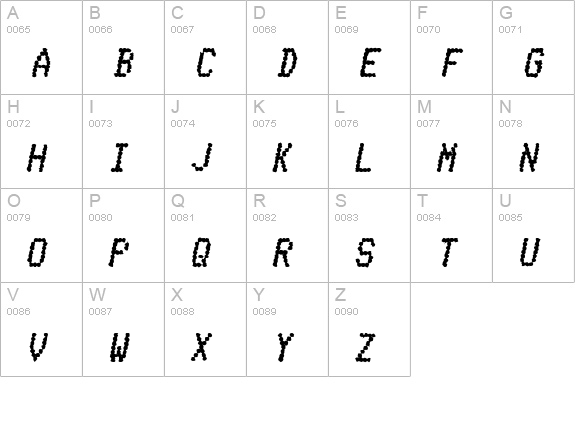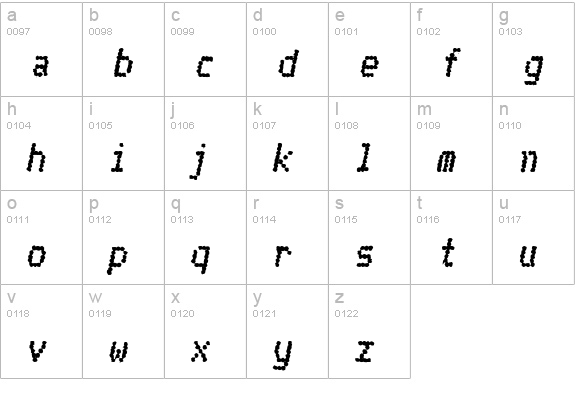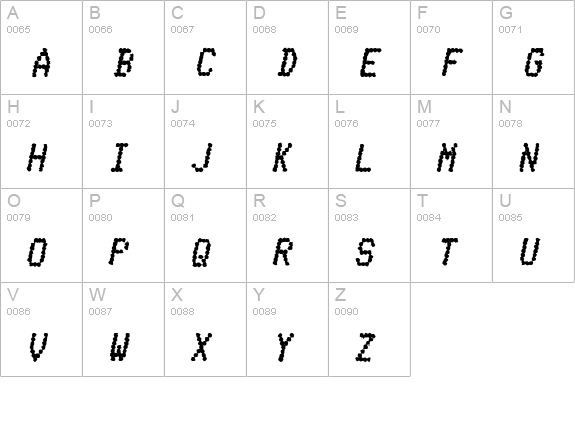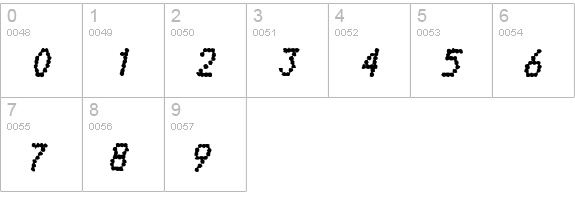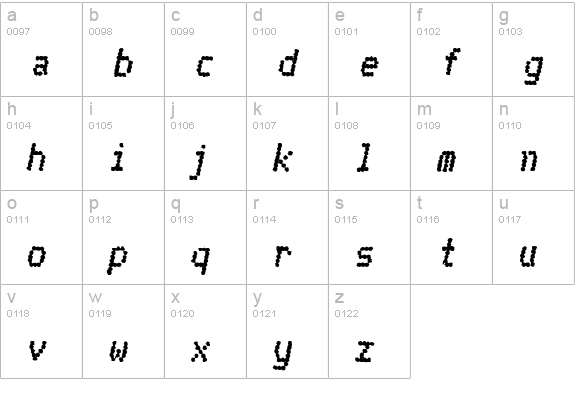
Telidon Ink Hv Italic Font Details
Telidon Ink Hv Italic is a distinctive, italic variant in the Telidon typeface family \xE2\x80\x94 well suited to design and typography projects.
Telidon Ink Hv Italic is a bold and dynamic font that exudes energy and modernity. With its striking slanted style and thick strokes, this font is perfect for making a statement in headlines, titles, and graphic designs. The unique ink-inspired detailing adds a touch of artistic flair to any project, making it stand out from the crowd. What's even better is that Telidon Ink Hv Italic is available for free download at FontsMarket.com. This means you can easily access this stylish font and elevate your designs without any cost. Whether you're working on branding, advertising, or personal projects, Telidon Ink Hv Italic is a versatile choice that will add a touch of creativity and sophistication to your work. Download it today and start creating eye-catching designs effortlessly!